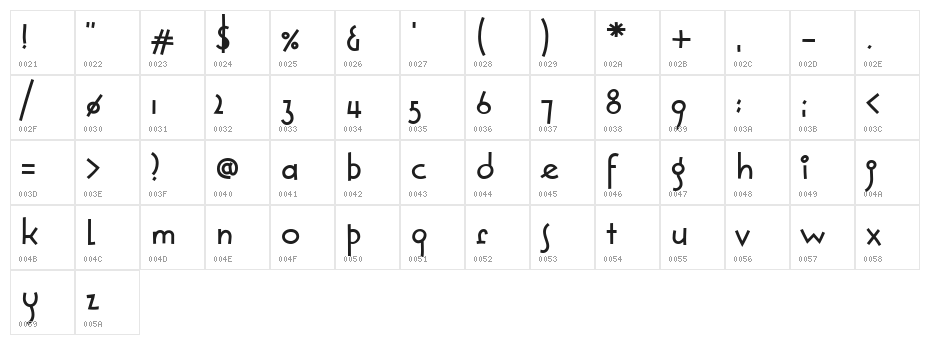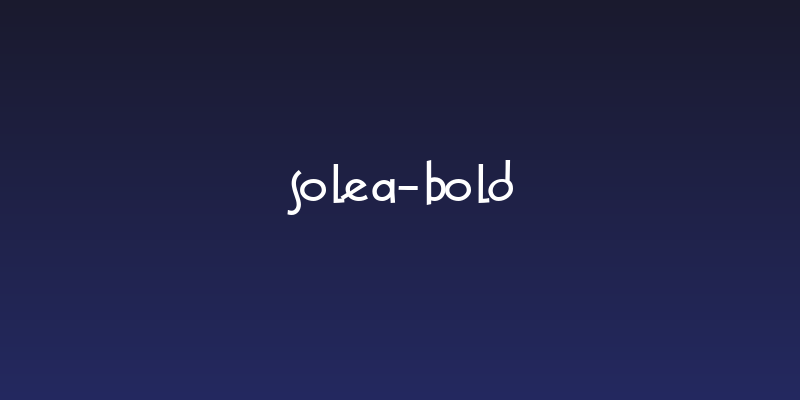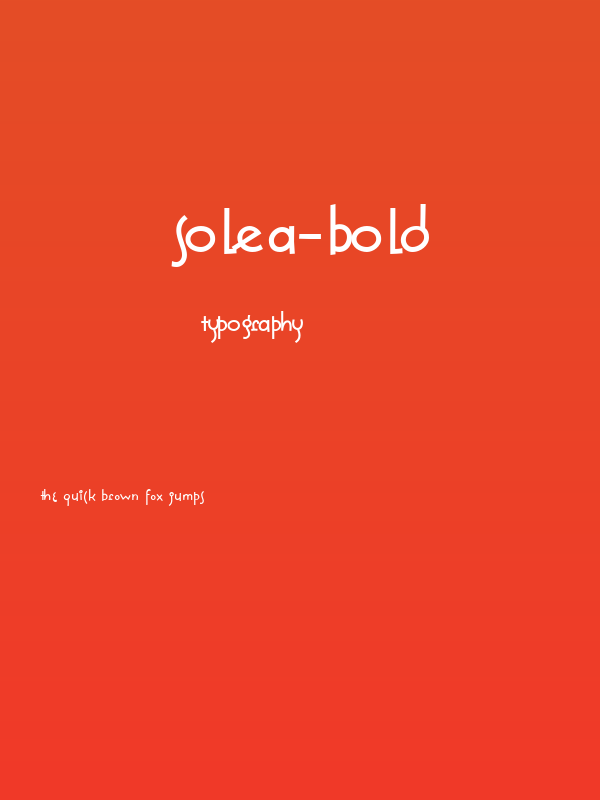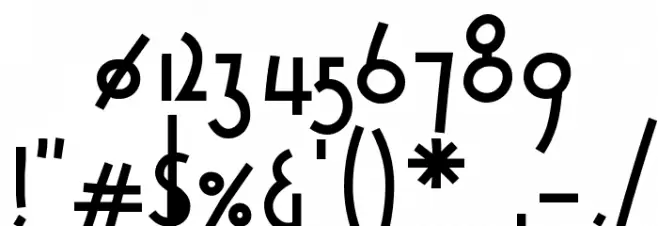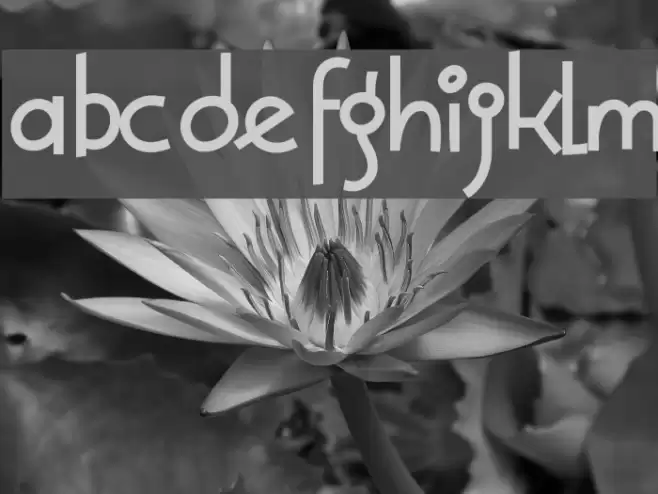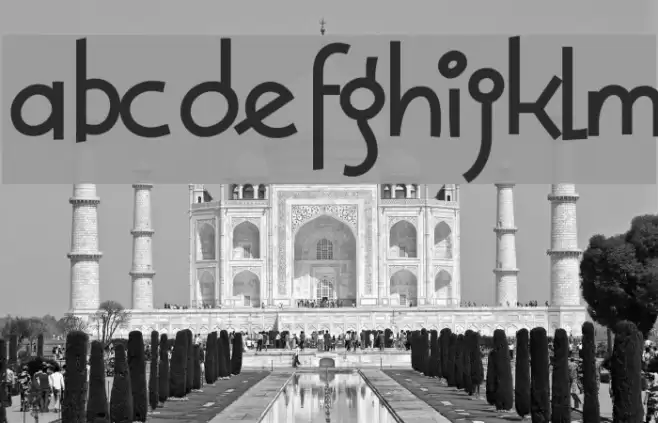
Solea-Bold Font
Solea-Bold Description
This font features a unique and playful design with a modern twist. The characters are bold and rounded, with a distinctive use of circular elements that add a quirky and artistic flair. The lowercase letters have a consistent height, while the uppercase letters maintain a strong presence. The numbers are equally bold, with a slight curvature that complements the overall style. Special characters are creatively designed, maintaining the font's playful aesthetic. This font is perfect for projects that require a touch of creativity and modernity.